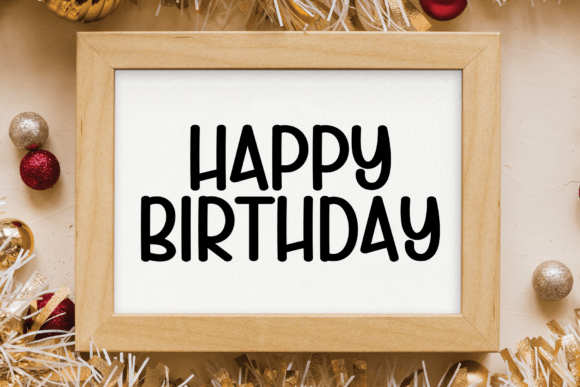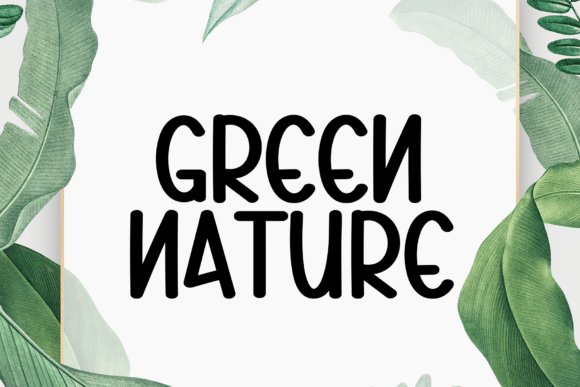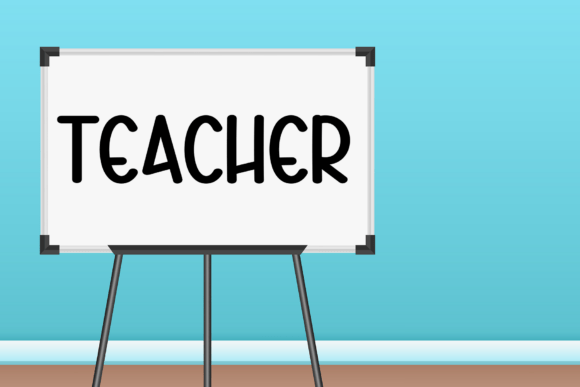
Introduction to Ladder Font
Do you ever find yourself rummaging through your design files, searching for the perfect font to give your latest project that extra special touch? It’s a moment we’ve all experienced, and one that can be both frustrating and exciting. For designers, the hunt for the perfect font can be a never-ending adventure, but what if I told you that you might have just found your new favorite? Enter the Ladder Font, a sweet and beautiful handwritten font that’s sure to elevate any design project.
With its unique characters that dance along the baseline, the Ladder Font is the perfect addition to any design resource. Whether you’re working on a project that requires a transparent background or just need a high-quality font to give your creative project a personal touch, the Ladder Font is sure to deliver. And the best part? It’s available for a free download, making it an absolute must-have for any designer looking to take their work to the next level.
Key Features of Ladder Font
- High-quality, professional design suitable for various creative projects, including logos, branding materials, and advertisements.
- Designed with a unique, modern aesthetic that can add a touch of sophistication to any design project.
- Perfect for designers seeking a high-quality, versatile font to elevate their creative projects.
Honest Review: Ladder Font
As a designer, I’m always on the lookout for high-quality design resources that can elevate my creative projects. Recently, I came across the Ladder Font, and I’m excited to share my honest review.
- ✨ Unique and modern design aesthetic that can add a touch of sophistication to any project.
- ✨ High-quality fonts that are perfect for headings, titles, and other display text.
- ⚠️ Limited character set, which may not be suitable for longer texts or paragraphs.
- ⚠️ Not ideal for small text sizes, as the font may become difficult to read.
Overall, I’m impressed with the Ladder Font’s unique design and high-quality fonts. While it may have some limitations, it’s a great resource for designers working on creative projects that require a modern and sophisticated look. If you’re looking for a free design resource that can add some flair to your work, the Ladder Font is definitely worth checking out.
Ladder Font
Tips for Getting the Most Out of Ladder Font
Experiment with different font sizes, colors, and styles to create a unique look. Use Ladder Font in combination with other design elements to create a visually appealing design.
Ladder Font is ideal for creative projects such as branding, advertising, and marketing materials. Its high-quality design and transparent background feature make it a popular choice among designers.
Can I customize the Ladder Font to fit my design needs?
The Ladder Font is a versatile design resource that can be customized to fit your creative vision. You can adjust the font size, color, and style to suit your project’s requirements. Additionally, the font’s transparent background makes it easy to layer over other design elements. With the Ladder Font, the possibilities are endless for your next design project.